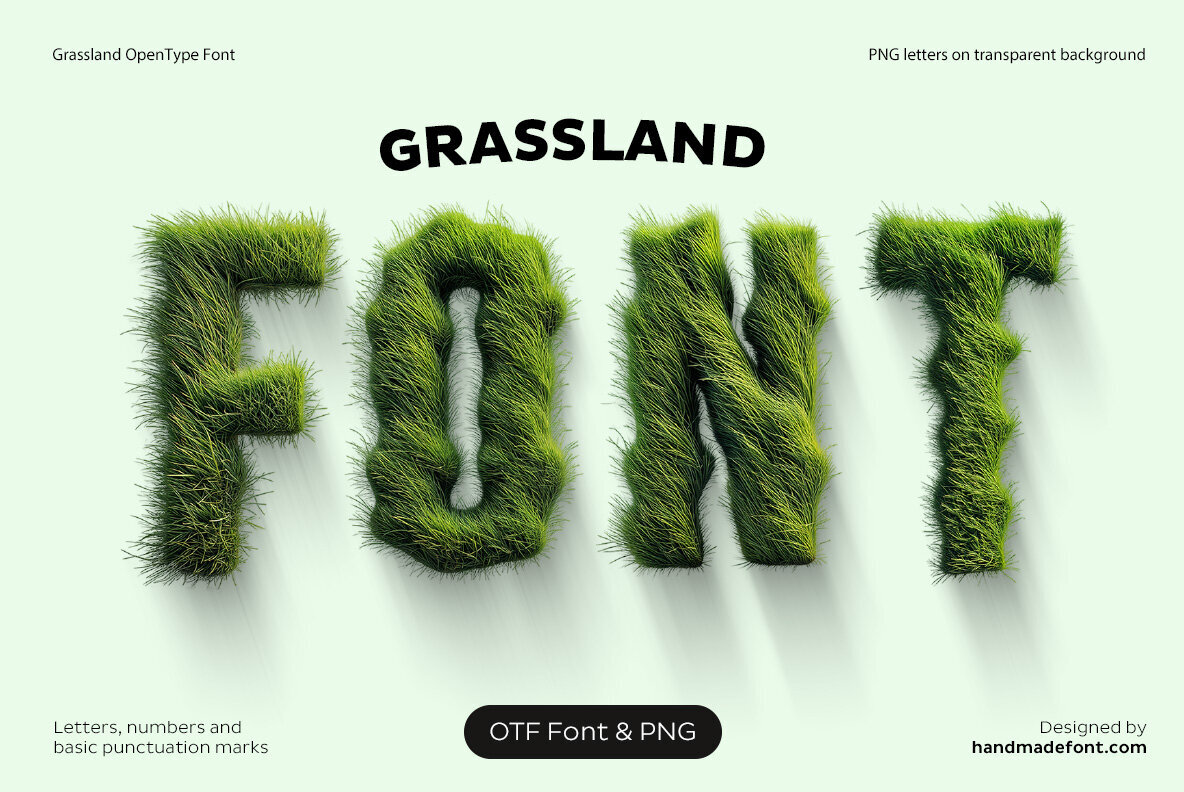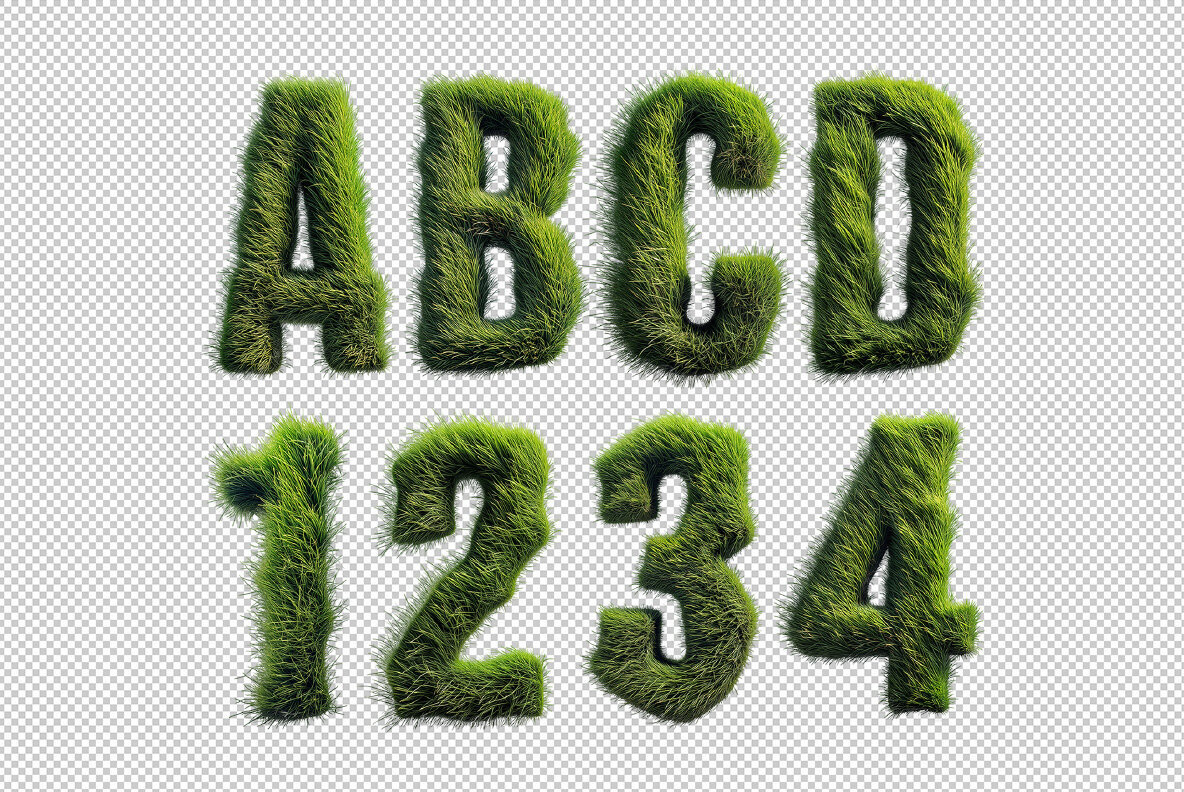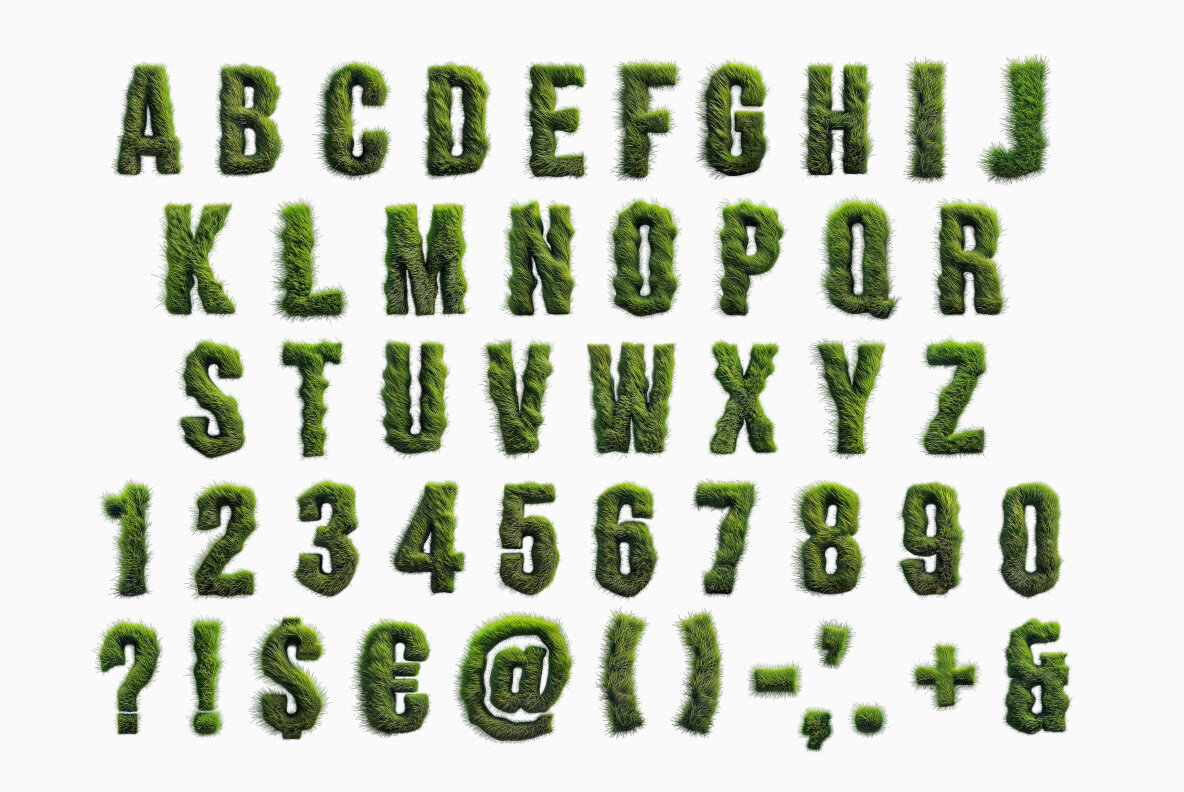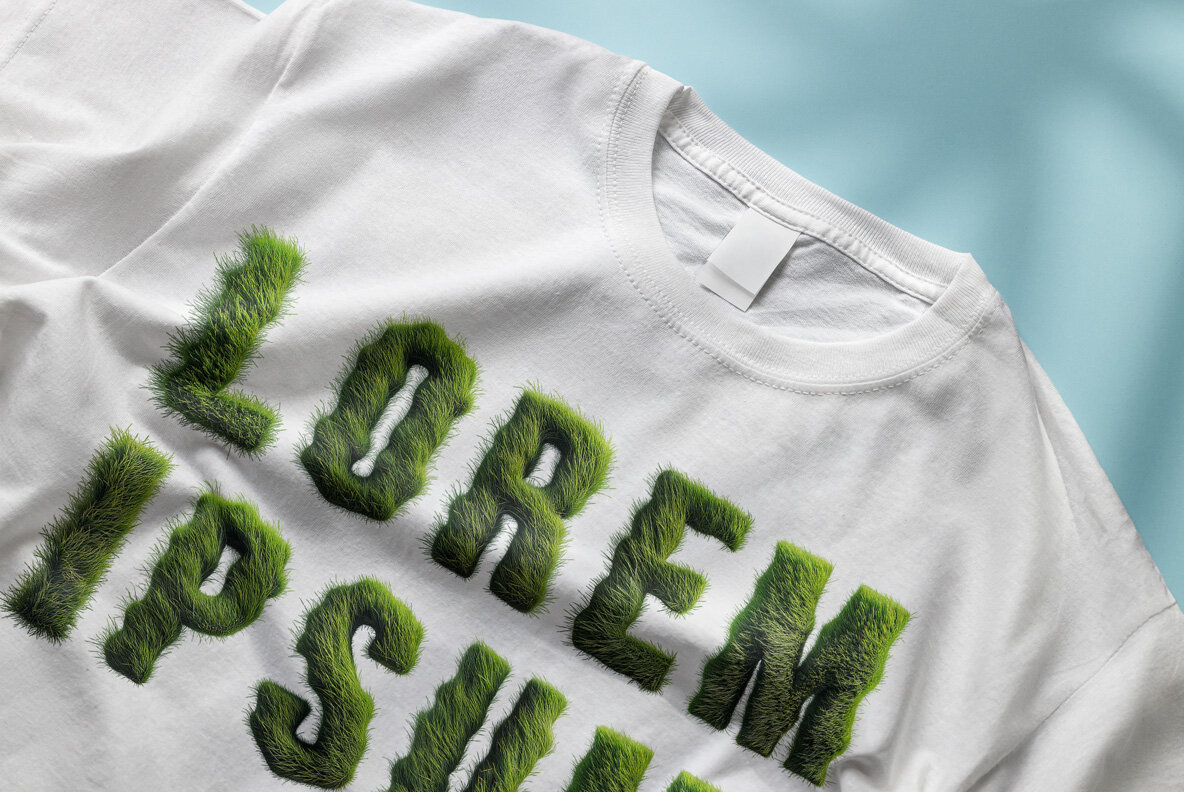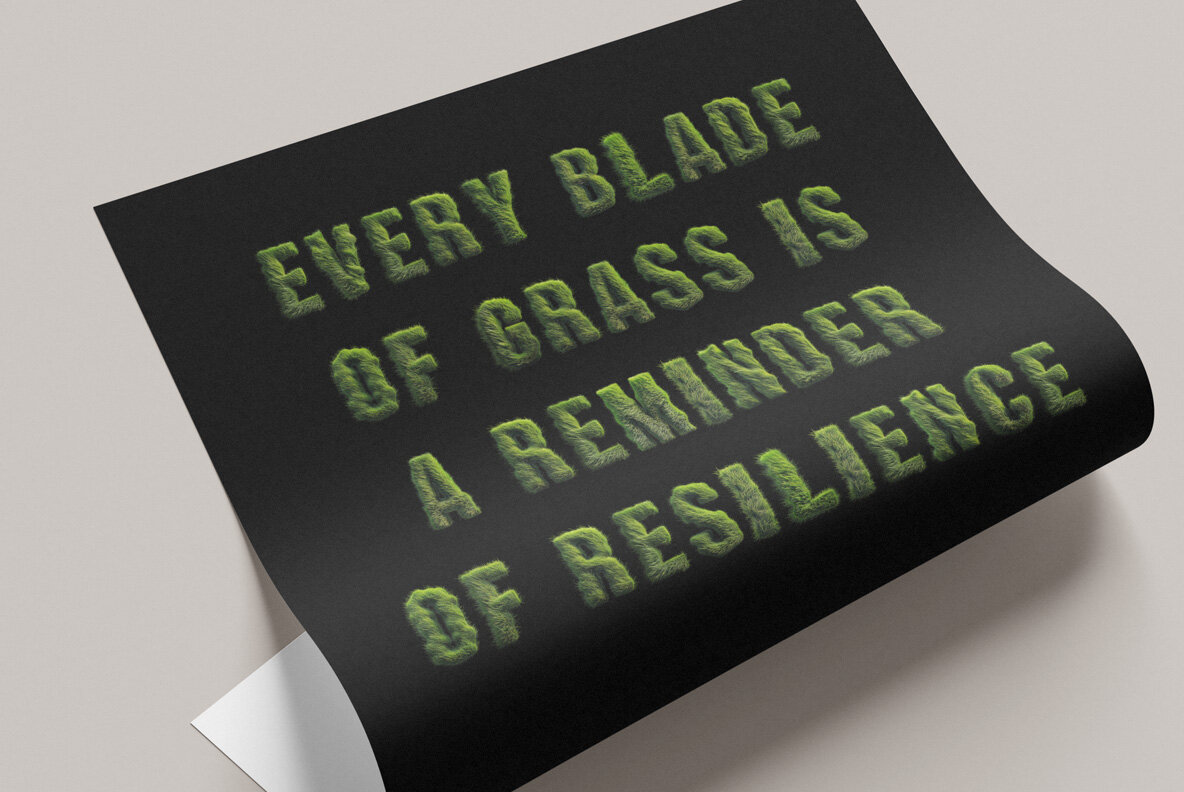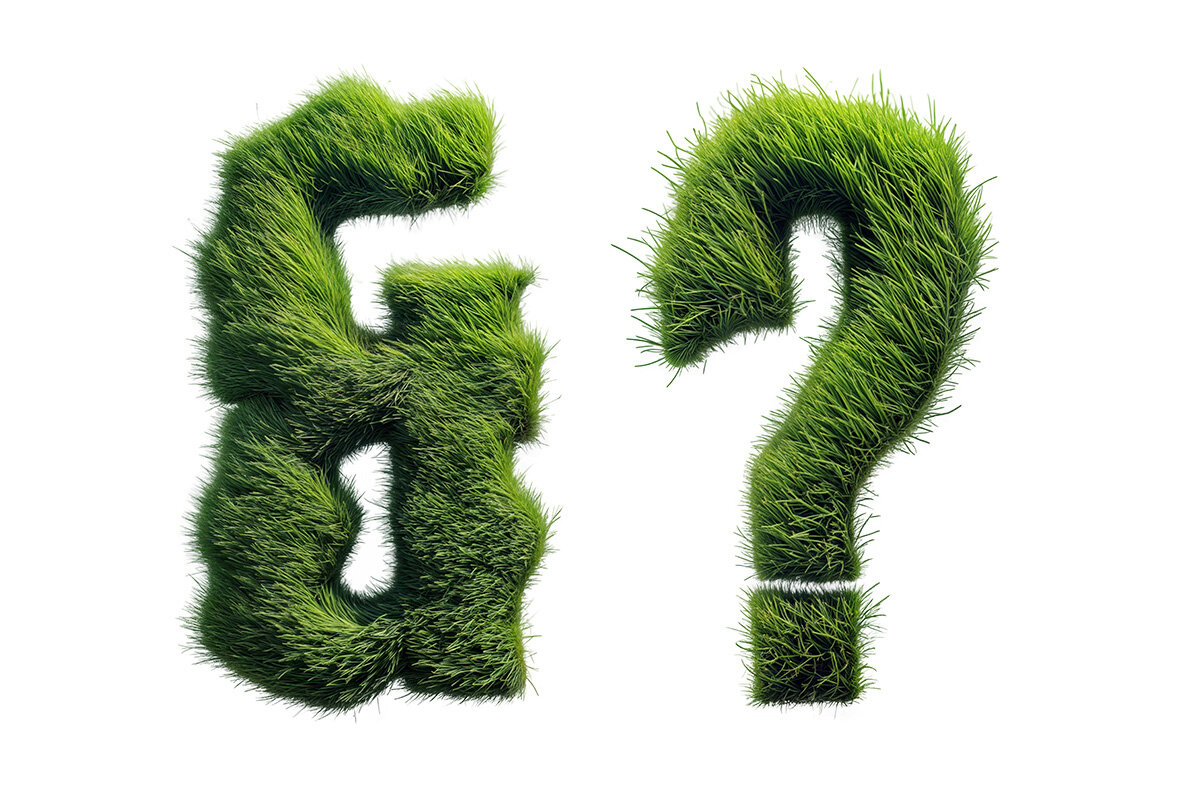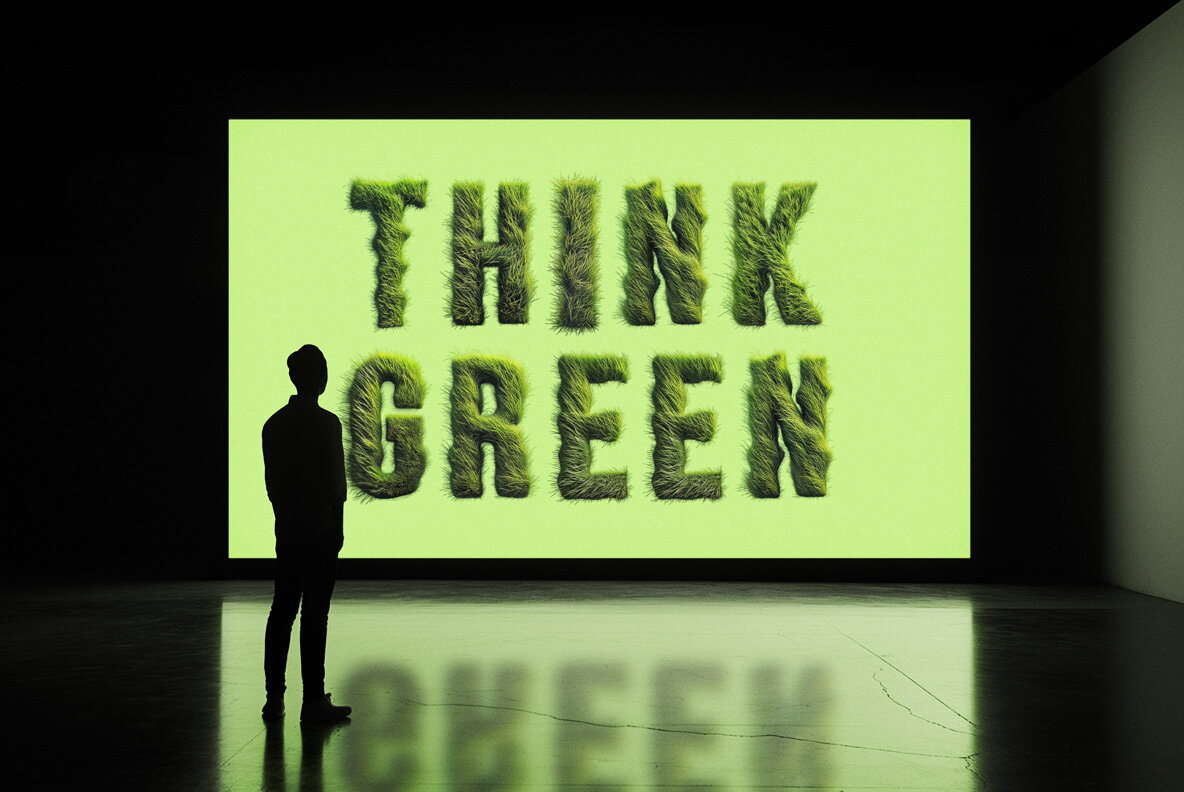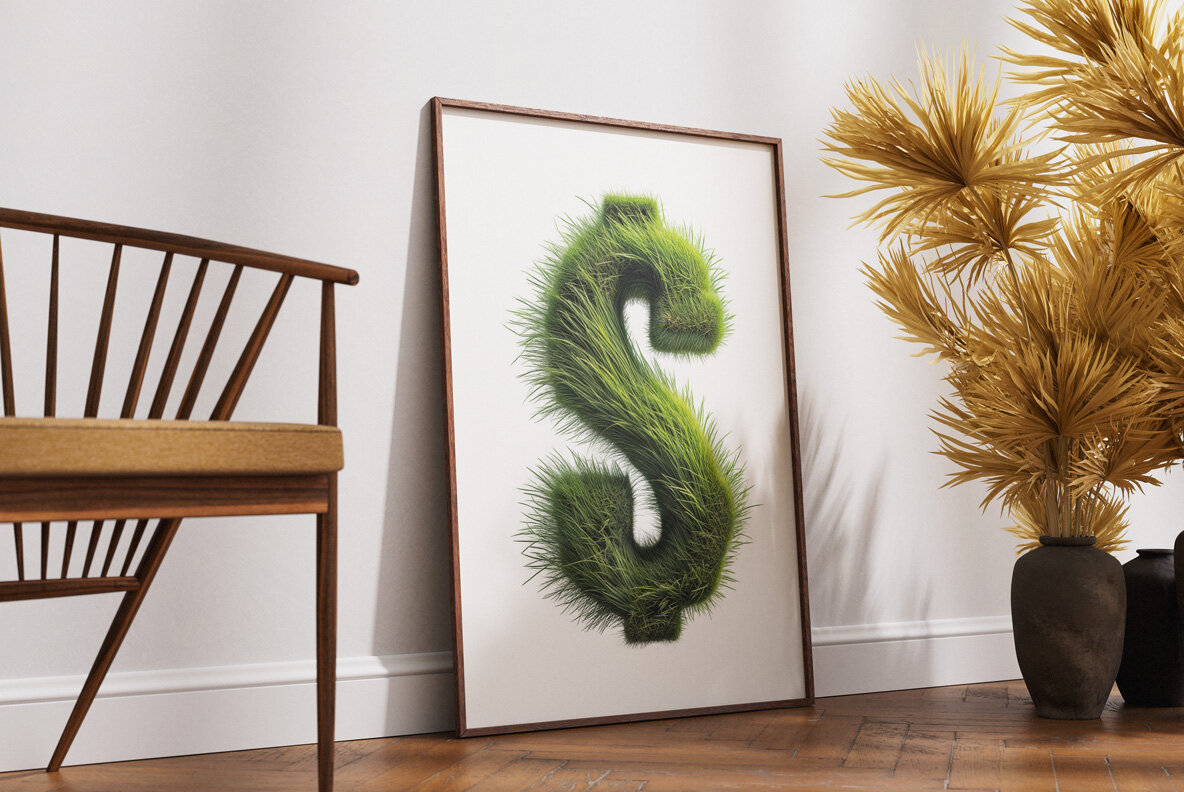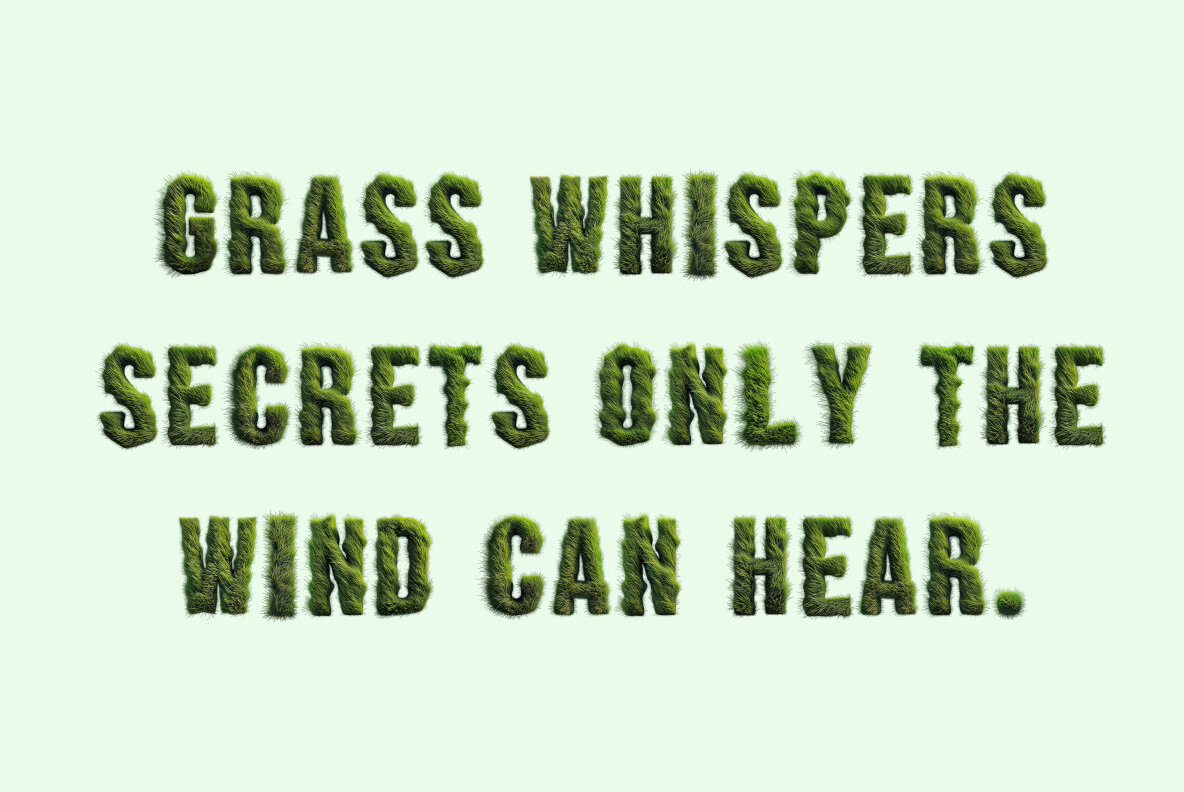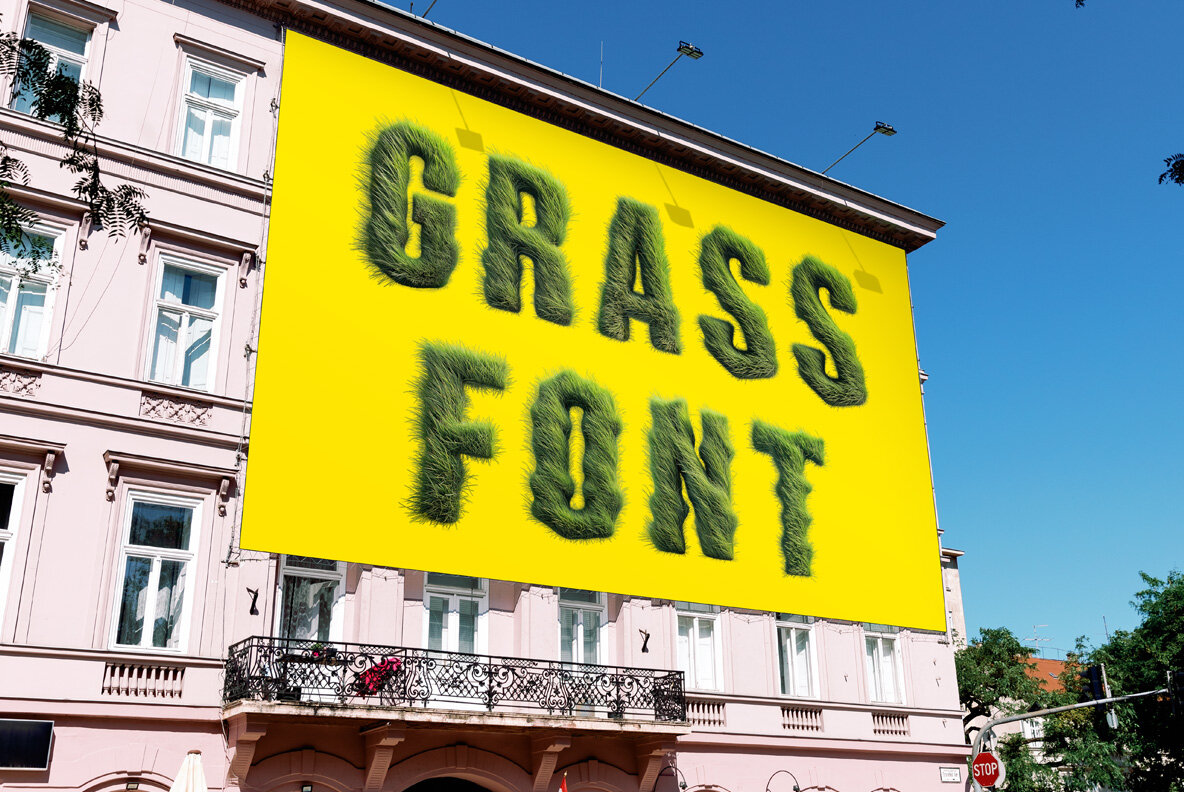
Grassland SVG is a vibrant typeface that brings a touch of nature to any design. Each character is crafted from meticulously detailed grass, offering a stunning, lifelike appearance. The soft and evenly distributed blades impart a fluffy, three-dimensional effect that seamlessly blends organic textures with artistic finesse. Ideal for eco-friendly designs, outdoor branding, or projects requiring a natural aesthetic, this font adds vitality to any creative endeavor. Perfect for environmental campaigns or playful designs, Grassland SVG transforms words into verdant expressions reminiscent of open landscapes.